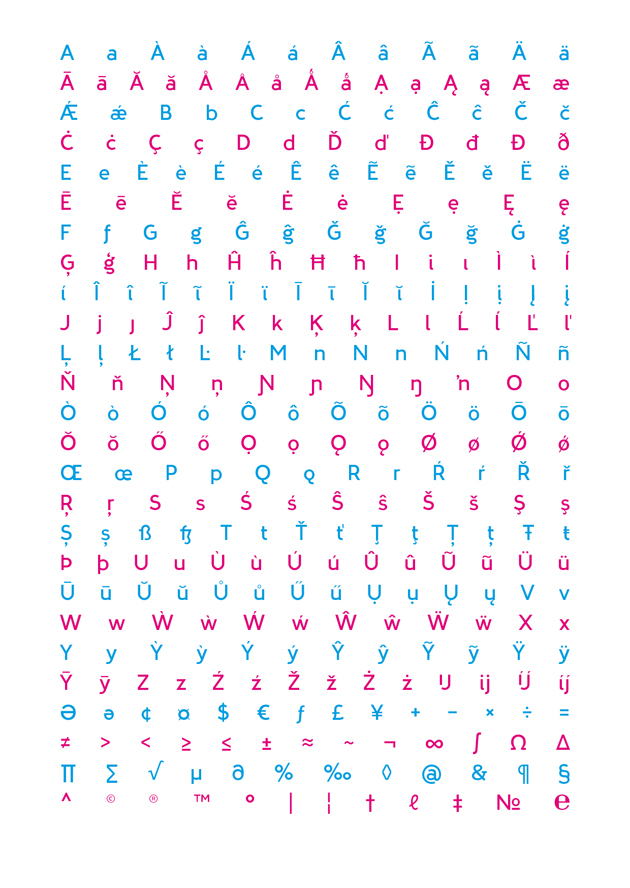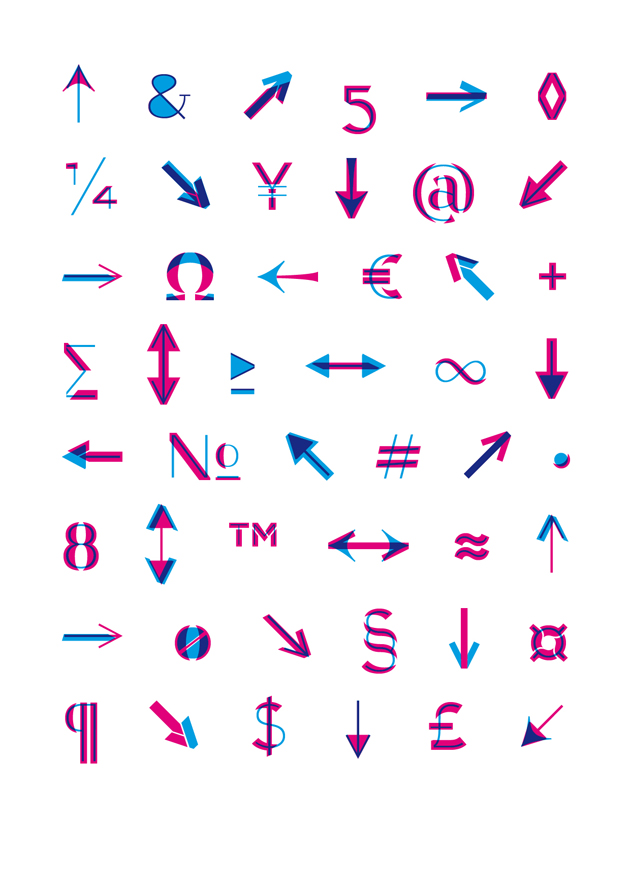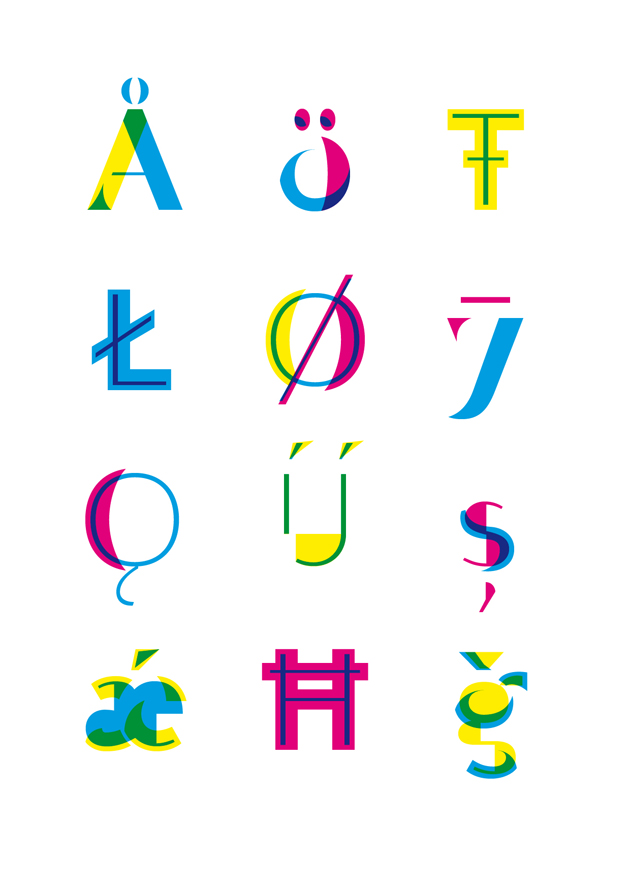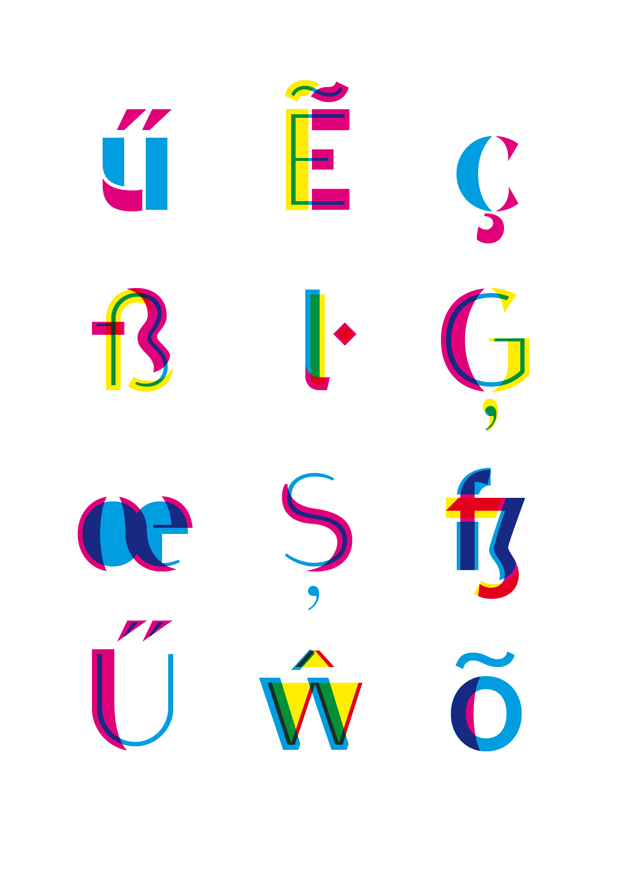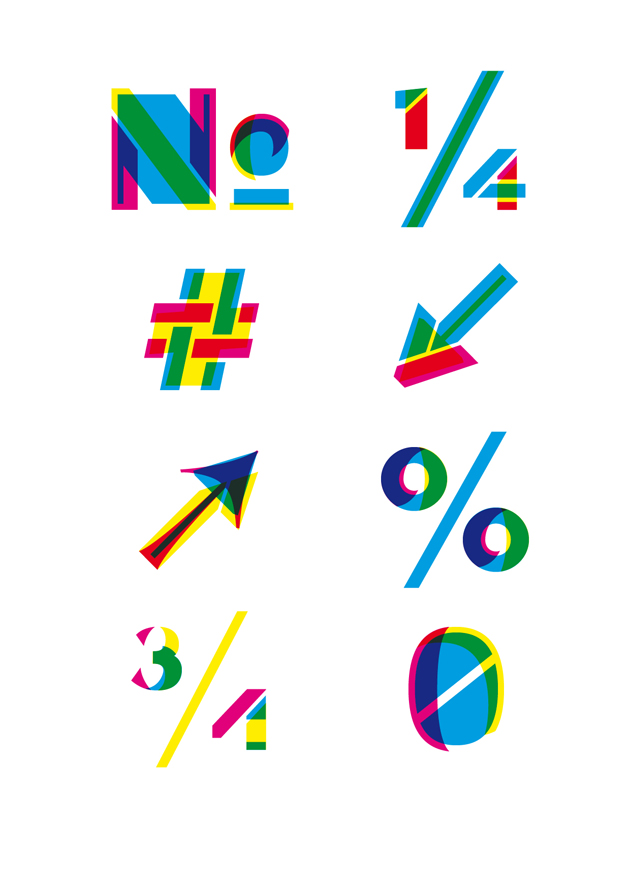
The Ziza typeface was originally designed for the Novo Typo Color Book. The Novo Typo Color Book is a logical continuation of the Typewood - The Declaration of Deconstructed Typography project and the Bixa typeface that was published in 2015. Bixa, the chromatic typeface, which is also produced in woodtype, is designed as a typeface for a large display size. The chromatic typeface which was especially created for this project, is designed and optimized for smaller sizes. With the Novo Typo Color Book project and the Ziza typeface we present a visual investigation of the possibilities of the use of chromatic typography within an editorial context.
Ziza is designed by Novo Typo / Mark van Wageningen (www.novotypo.nl)
Font development & production by Lisa Dröes